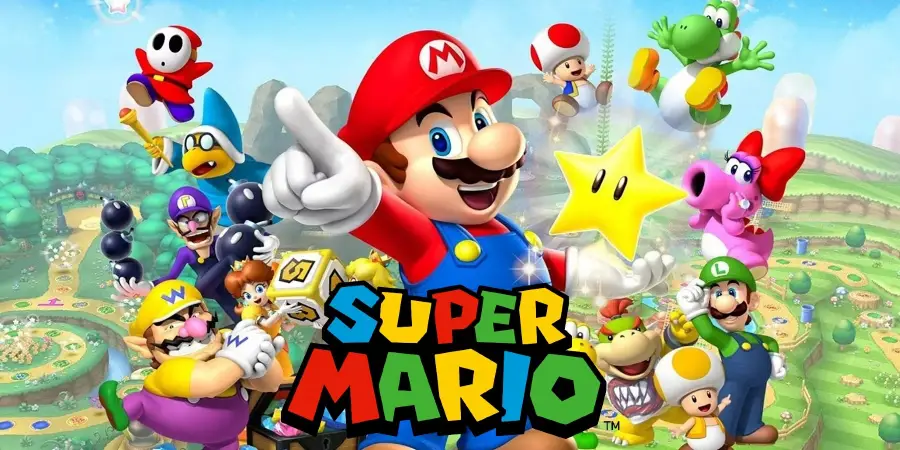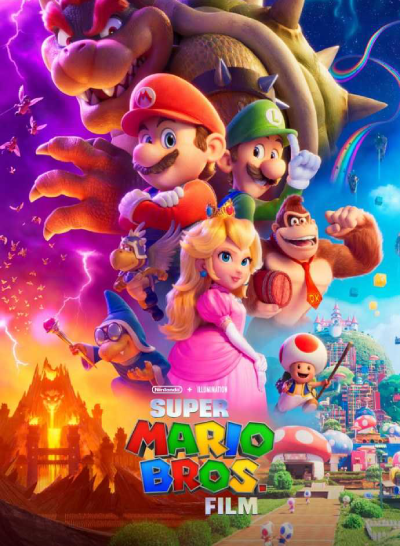
Today, we will delve into the fascinating world of Super Mario fonts.
The Super Mario series, created by Shigeru Miyamoto in 1985, is a renowned video game franchise that has captivated millions of people worldwide. The main character, Mario, has become an iconic figure in the gaming industry. Alongside other legendary characters like Pac-Man and Sonic the Hedgehog, Mario has left an indelible mark on video game culture.
Super Mario fonts
The Super Mario franchise has had various logos throughout its history. Here are some fonts that look similar to the logo:
Sumario Font
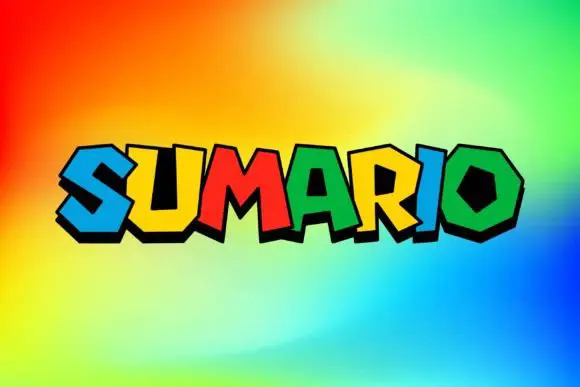
Sumario is a decorative font with a Gothic and stylish flair, exuding a cartoon-like quality that makes it stand out. It is designed by Abuhasnat and available on Creative Fabrica. This is a very good alternative for Super Mario Logo.
Gamtex Font
The fancy-type Gamtex font was created by FG Studios. This font looks similar to the new 2023 animated movie “The Super Mario Bros. Movie” title logo. Please see the below comparison.
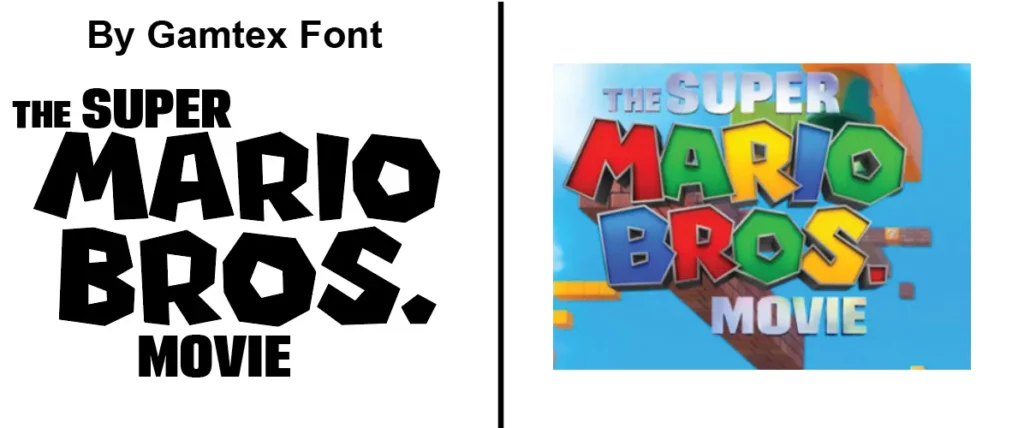
Super Plumber Brothers Font
It’s a replica font for the original Super Mario Bros. logo, released in 1985. It was designed by Jackster Productions.
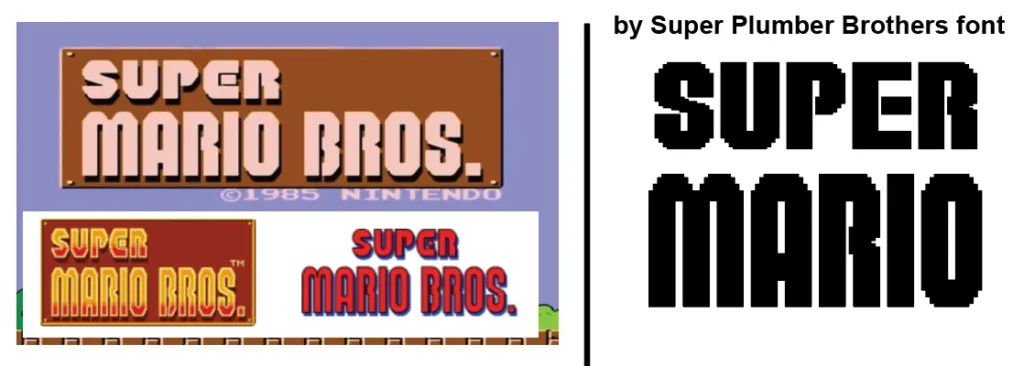
Super Mario 256
Another similar logo font design by fsuarez913. The Super Mario 256 font is similar to the Super Mario 64 game title logo. Its a free font.
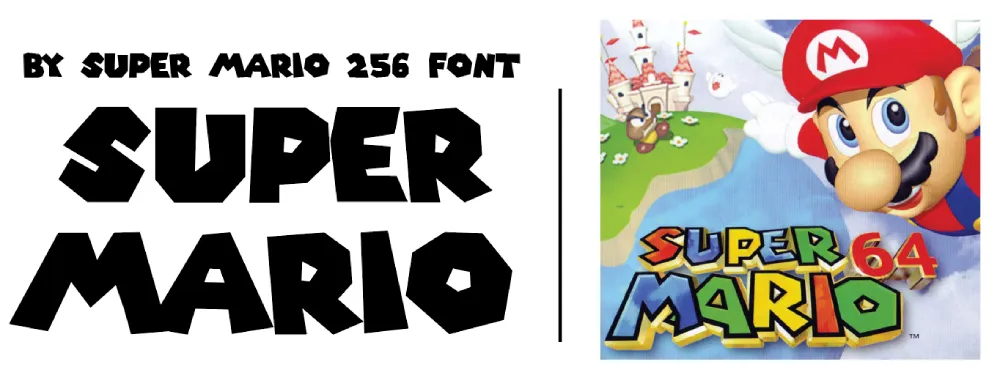
Chlorinap font
Caffeen Fonts created this font, which is similar to the Super Mario Galaxy 2 game’s logo. It is an outline font with a cartoonish style.
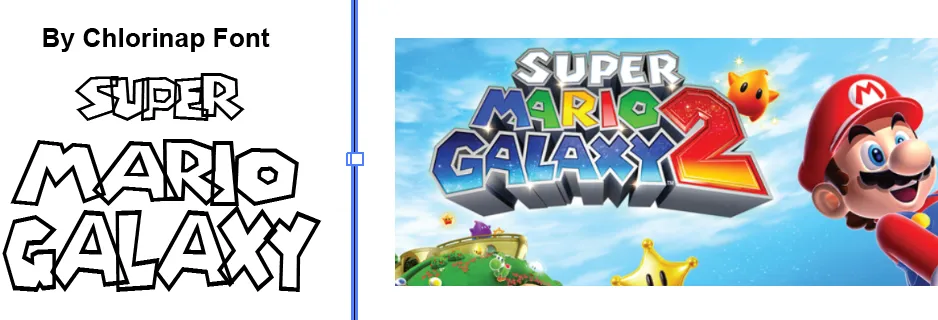
Typeface Mario World Pixel Filled Regular Font
This font is similar to the logo of the Super Mario World game and has an outline version as well. It was designed by Ripoof in 2022.
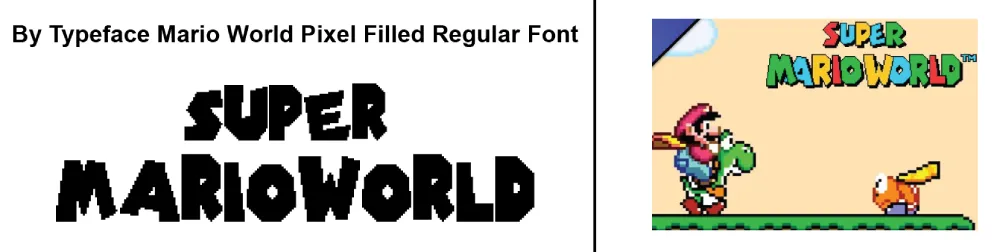
Olive MN Nord font
This font matches the logo of the 1993 Super Mario Bros. live-action movie. It is a fancy display typeface designed by PYRS Fontlab Ltd.
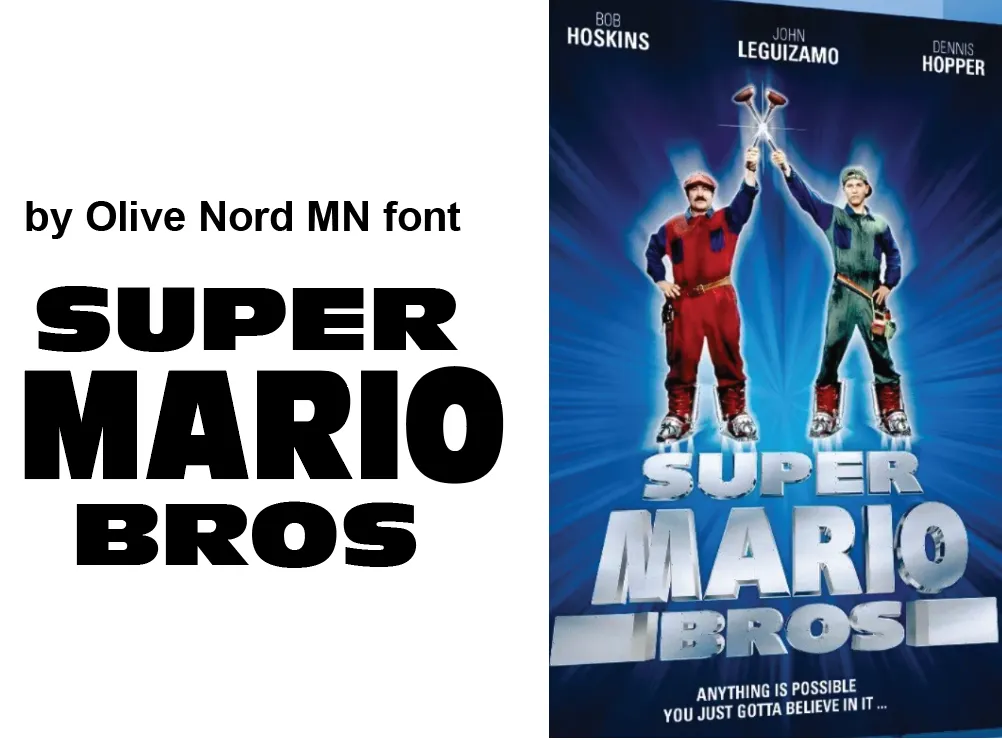
Kristopher Regular Font
It is a display font designed by Vintage Voyage Design Supply. The font looks very similar to the logo of Super Smash Bros. for the Nintendo 3DS/Wii U (2014) version.